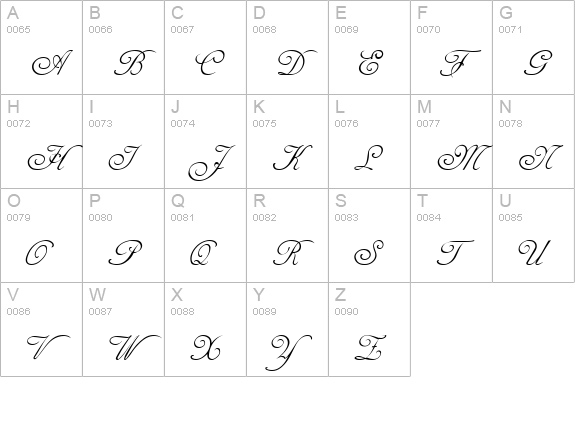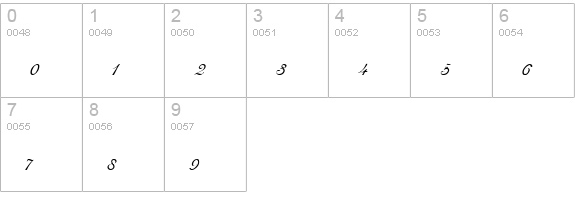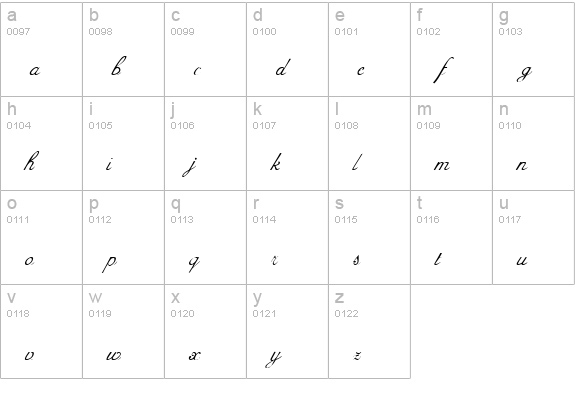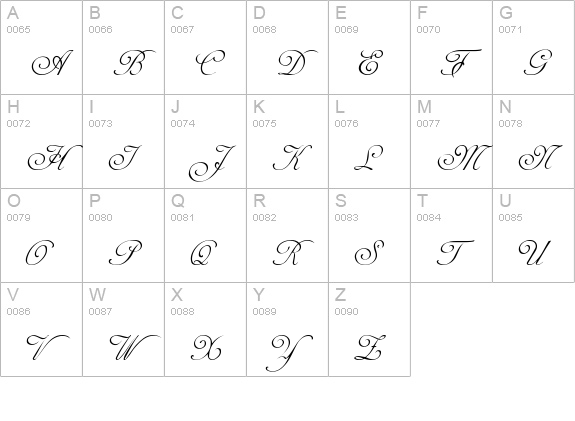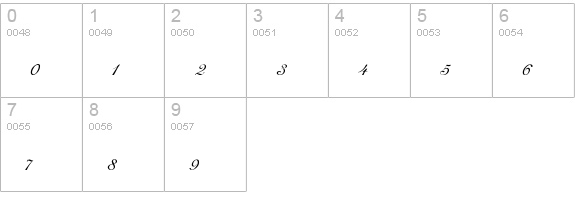
AdineKernberg Regular is the standard, neutral variant in the AdineKernberg typeface family \xE2\x80\x94 well suited to general body text, paragraphs, and standard typographic work.
AdineKernberg Regular font is a modern and versatile typeface that exudes elegance and sophistication. Its clean lines and smooth curves make it perfect for a wide range of design applications, from branding to editorial design. The well-balanced letterforms give off a sense of professionalism while still maintaining a touch of creativity. This font is freely available for download at FontsMarket.com, making it accessible to designers and creatives looking to add a touch of sophistication to their projects without breaking the bank. With AdineKernberg Regular font, you can elevate your designs and make a lasting impression on your audience. Whether you're working on a logo, website, or print materials, this font is sure to make your work stand out.